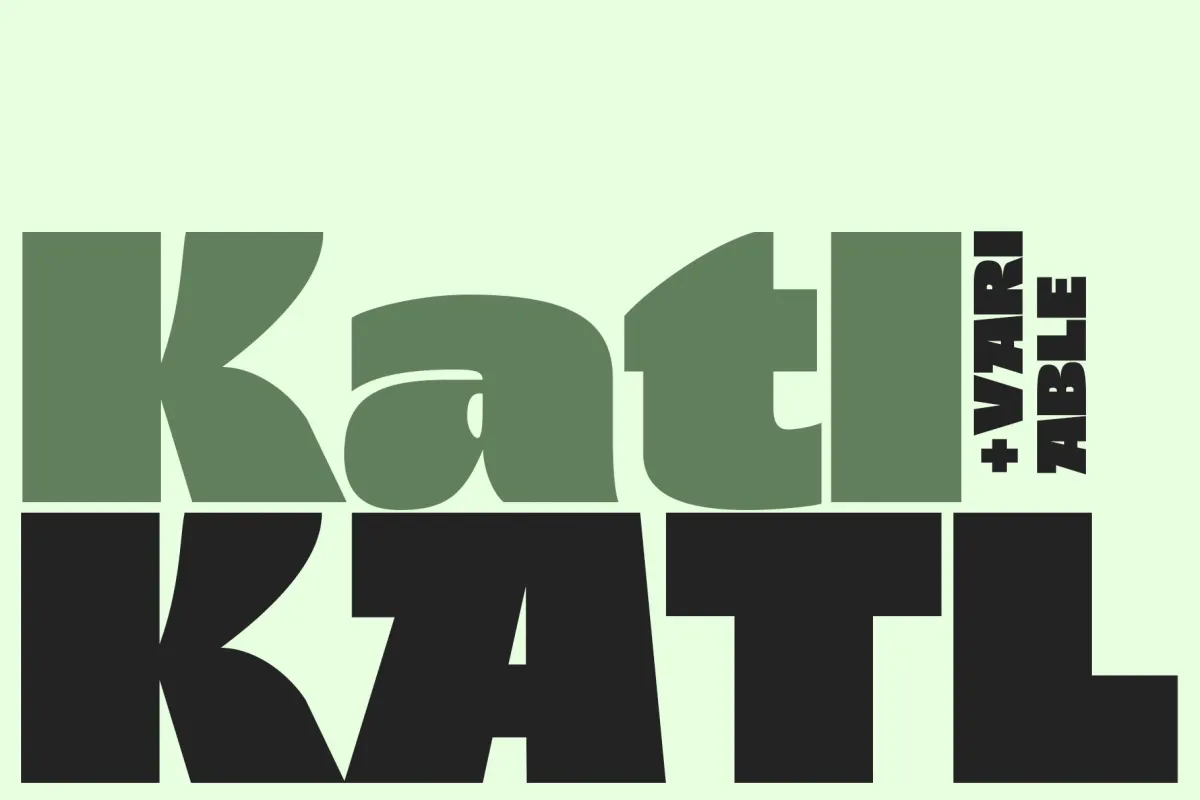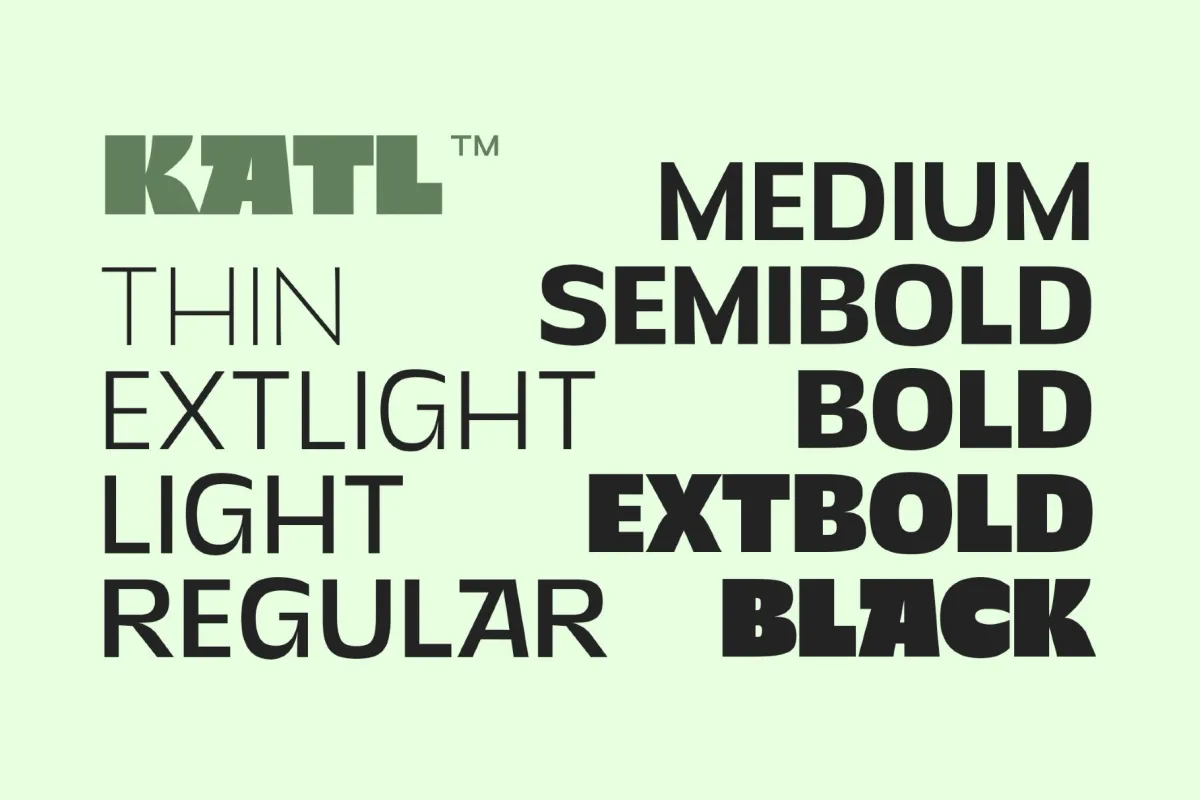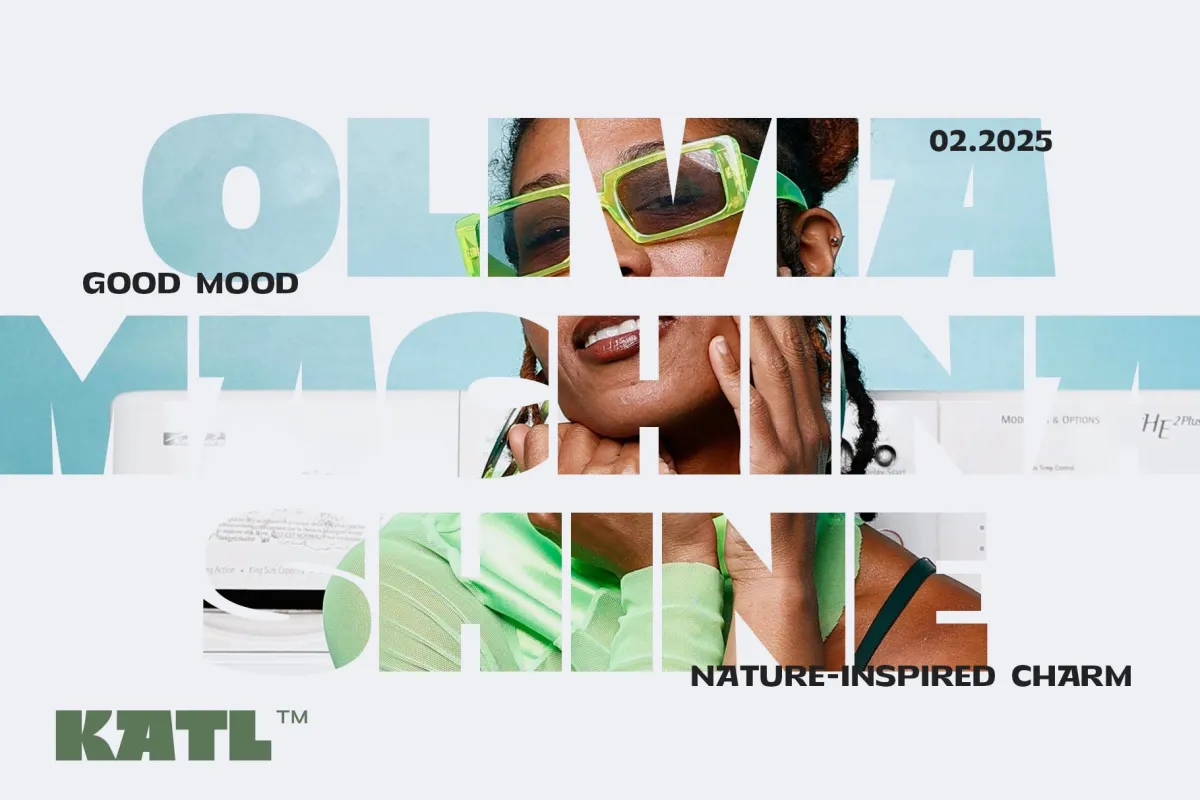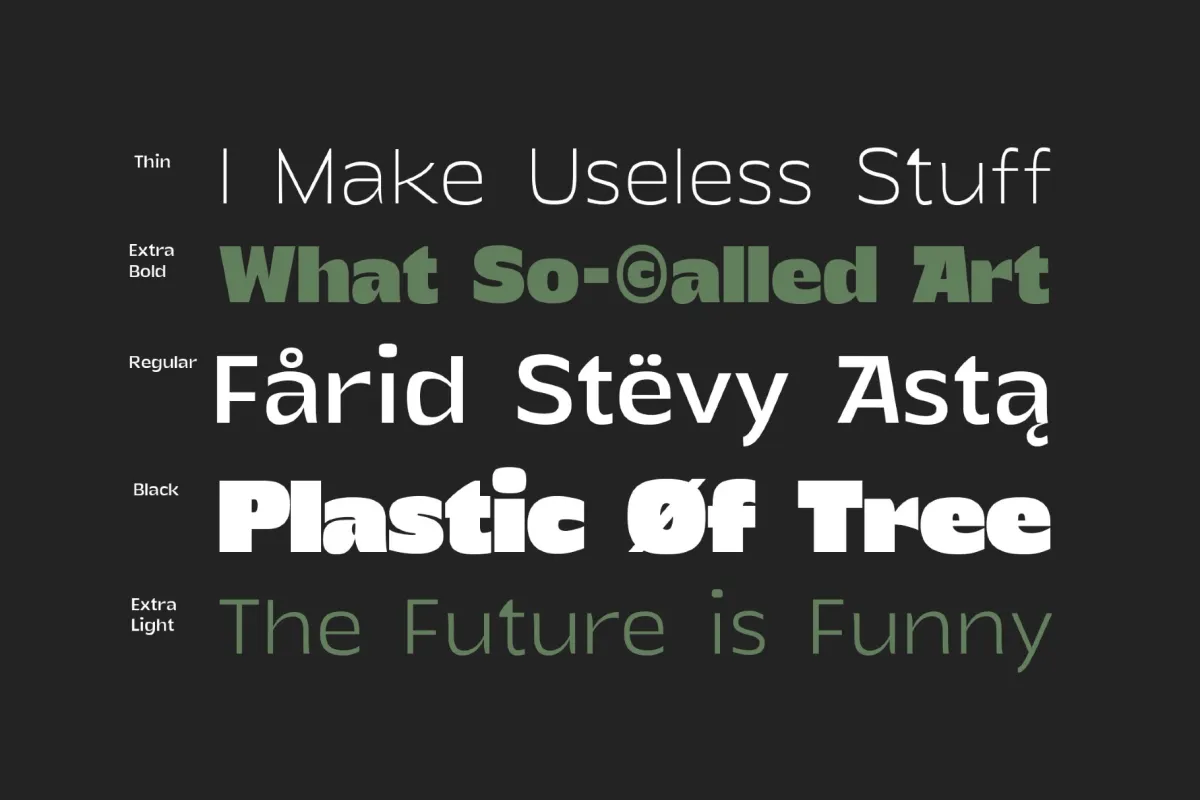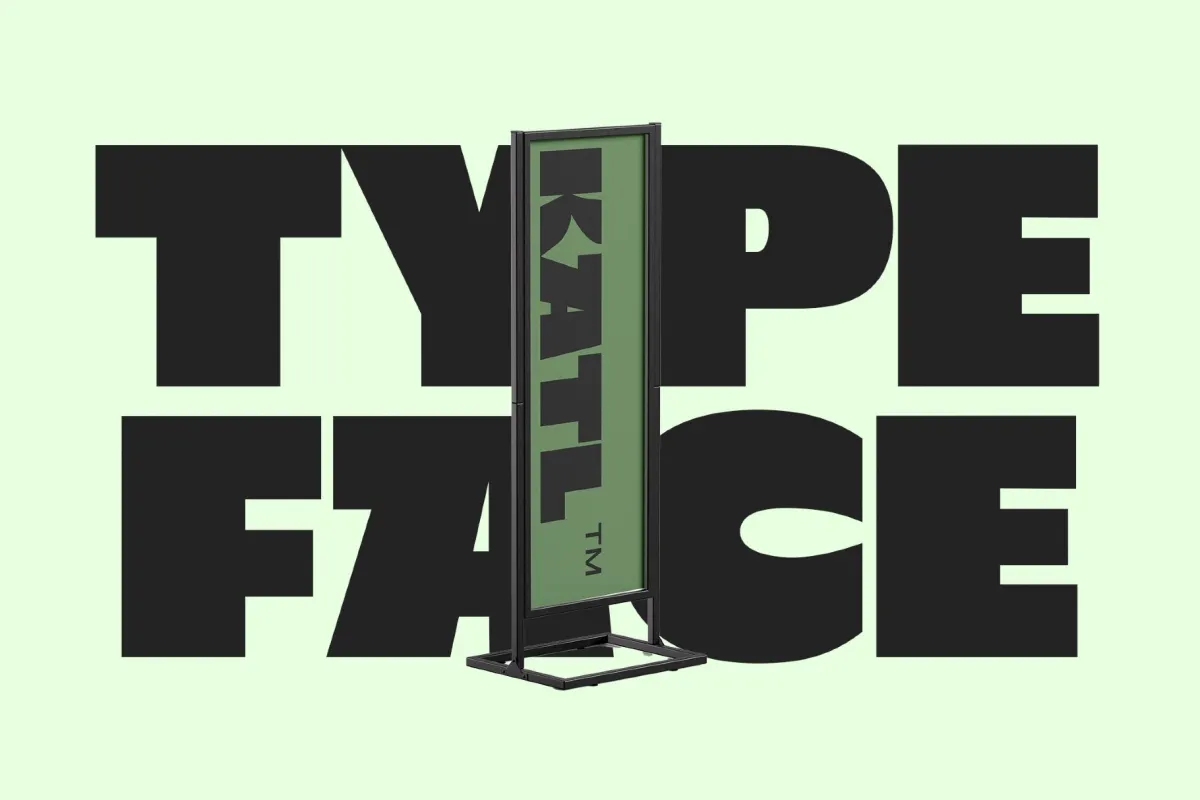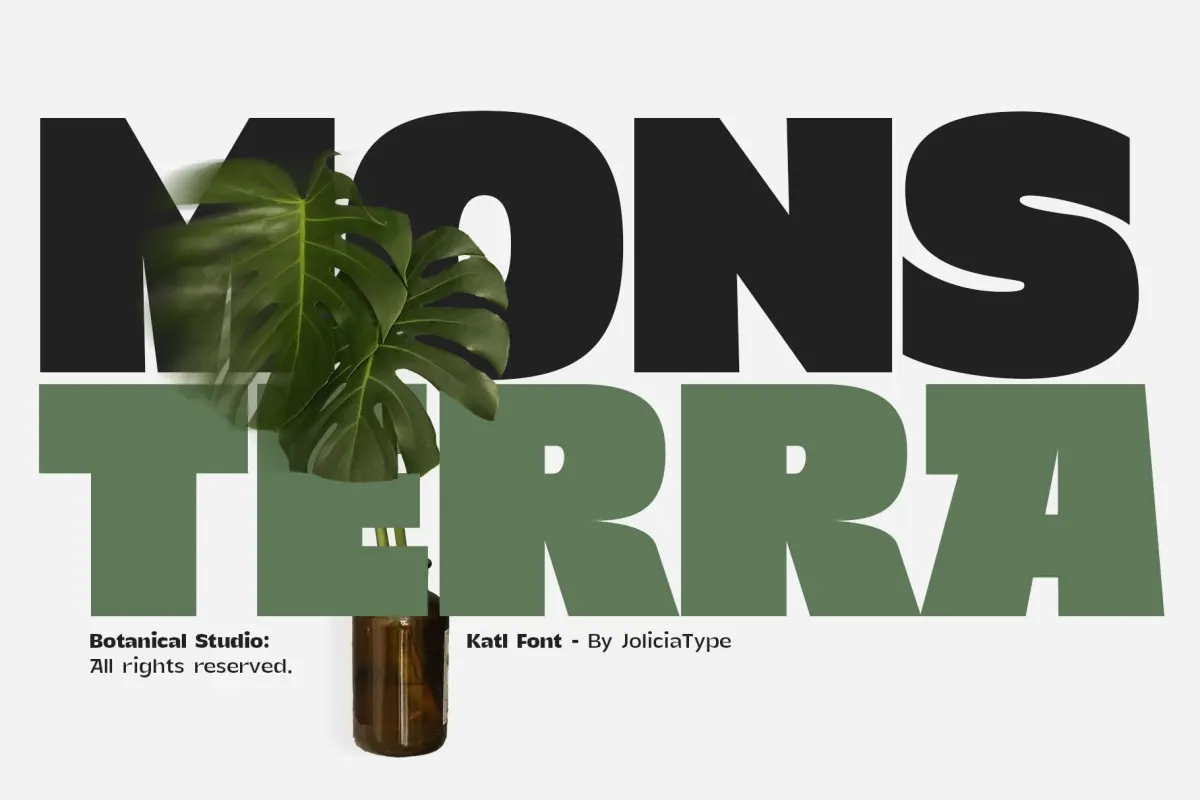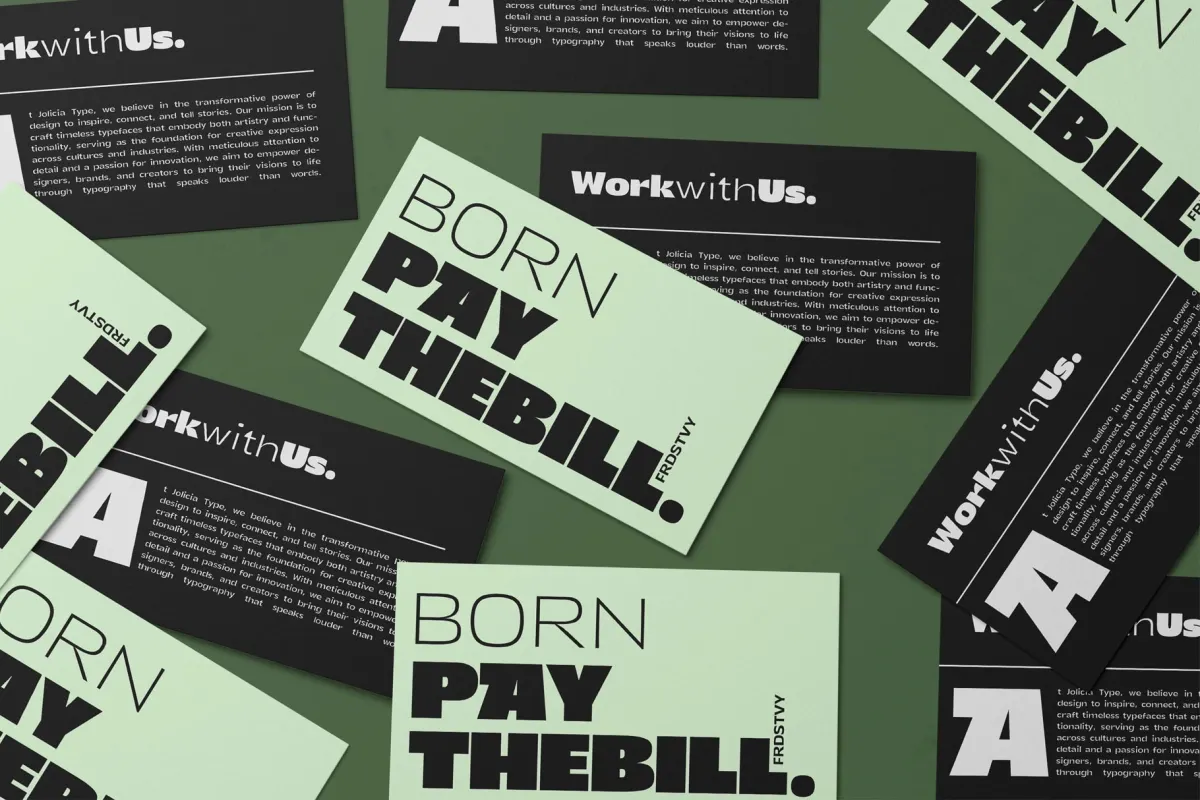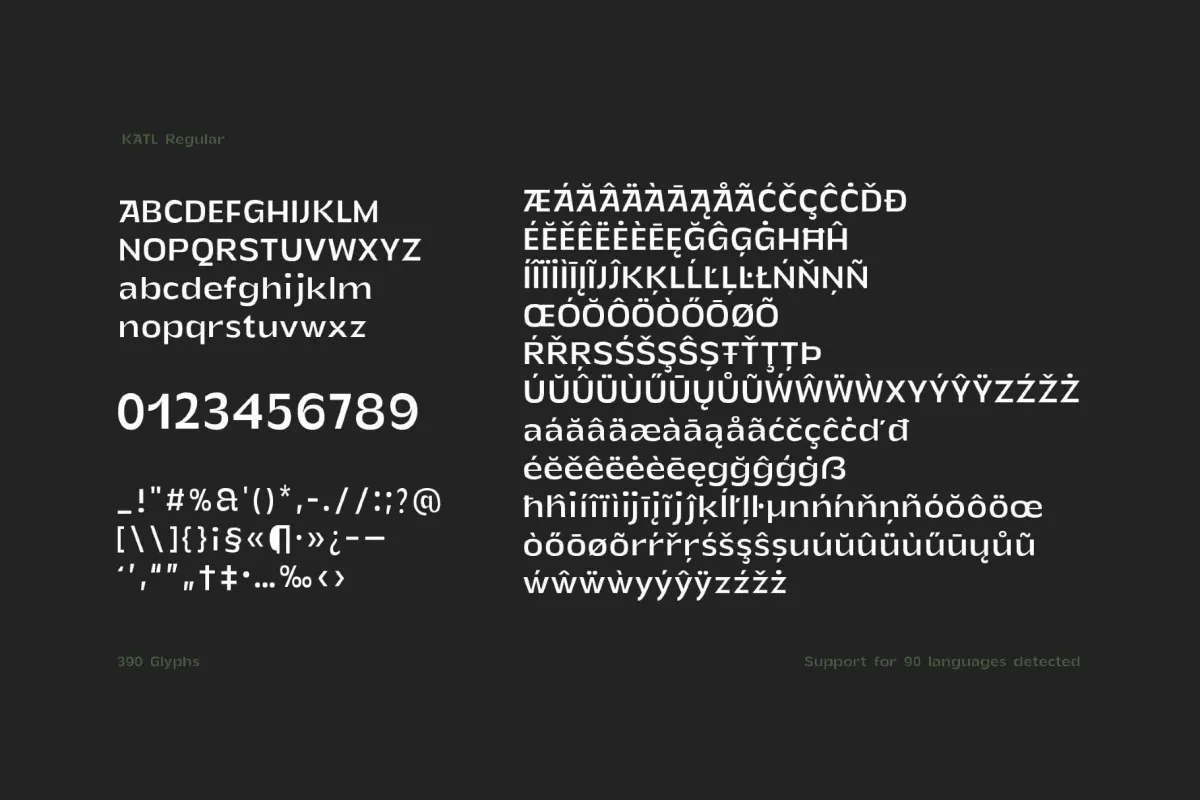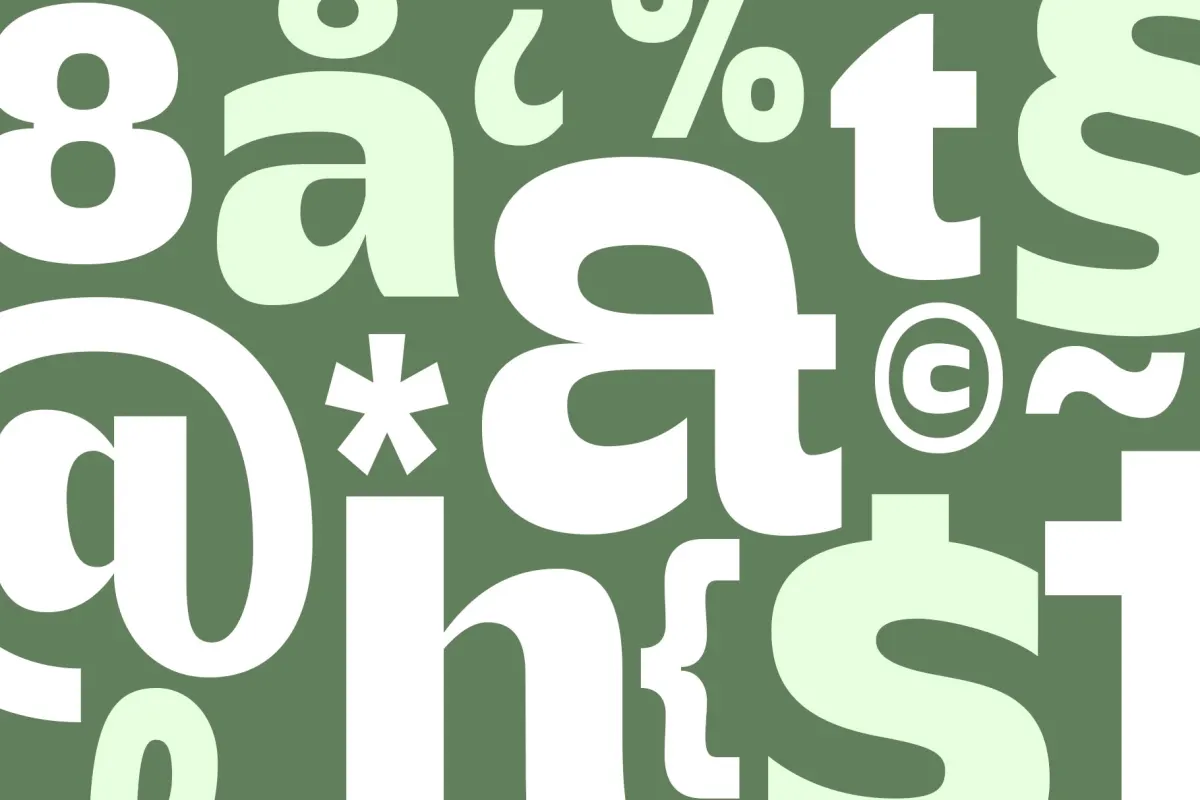
Katl - Modern Sans Serif Font Family
Katl is a sans serif family cut from clean geometric strokes, staying trim and even through nine weights instead of just widening as it gets heavier. The set runs Thin through Black, plus a variable-weight file that dials in any point between them on a single slider.
The shapes hold their proportions at both ends of the range, so a headline in Black and a caption in Light read as the same typeface rather than two unrelated designs. Use it for branding, editorial layouts, web design, packaging, and UI systems that need one family to cover display and text roles.
- 9 styles: Thin, ExtraLight, Light, Regular, Medium, SemiBold, Bold, ExtraBold, Black, plus a variable-weight file spanning the full range;
- uppercase & lowercase;
- numerals, punctuation & symbols;
- stylistic alternates, case-sensitive forms & historical forms;
- multilingual support;
- 390 glyphs per style.